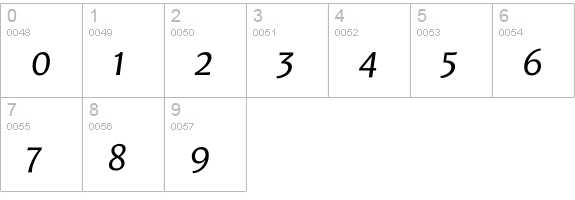
Leksa Sans Italic is a distinctive, italic variant in the Leksa typeface family \xE2\x80\x94 well suited to design and typography projects.
Leksa Sans Italic font is a sleek and modern typeface that exudes elegance and sophistication. Its italicized design adds a touch of flair and style to any text, making it perfect for adding a touch of personality to your projects. The clean lines and smooth curves of Leksa Sans Italic create a harmonious balance that is both visually appealing and easy to read. What sets Leksa Sans Italic font apart is that it is free to download at FontsMarket.com, making it accessible to anyone looking to enhance their designs with a premium-quality typeface. Whether you're working on a branding project, website design, or any other creative endeavor, Leksa Sans Italic font is sure to elevate your work to the next level. Don't miss out on the opportunity to download this stunning font for free and add a touch of sophistication to your projects today.